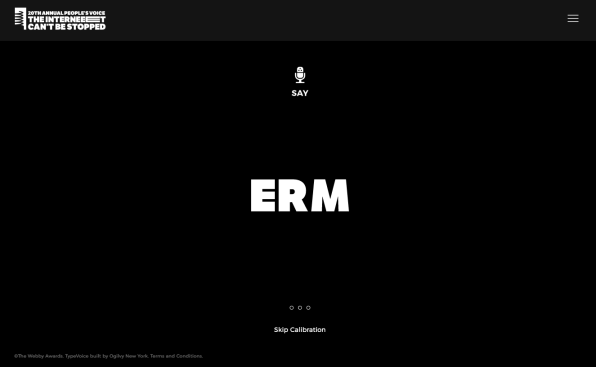
You know those games where you use something as a metaphor for your personality? Like, if you were a fruit what fruit would you be? Or are you a Chandler, a Joey, a Rachel, a Carrie, a Samantha, a Miranda? Now to celebrate its 20th anniversary, The Webbys has launched a design and digital nerd version of this parlor game/social masochism with a site that can turn your voice into an original font.
Created by agency Ogilvy New York for The Webbys anniversary project “The Internet Can’t Be Stopped,” TypeVoice marks the April 5 open of voting for the People’s Voice award. Users can create their own bespoke font with the sound of their voice, then share their custom words and typeface through animated GIFs as well as download the vector art. What does your font say about your voice? Are you surprisingly Helvetica? A wee bit too Comic Sans-y?
Ogilvy New York creative director Chris Rowson says this was a concept his team had been playing around with before and the Webbys People’s Voice Award seemed like the perfect opportunity to bring the idea to life. Essentially, it’s a web application that leverages the best that Chrome and Firefox has to offer, grabbing audio data from your microphone to manipulate the custom-made typefaces in real time.
“Using volume, pitch, and other audio parameters we’ve created algorithms around this data to animate each character and make the text come to life,” says Rowson. “Because we use different parameters, you get a number of results when you interact with our experience. Yell, laugh, and whistle into TypeVoice and you’ll find yourself surprised. Under the hood of this application, we have Greensock animation library, JavaScript, and lots of math with SVG data.”